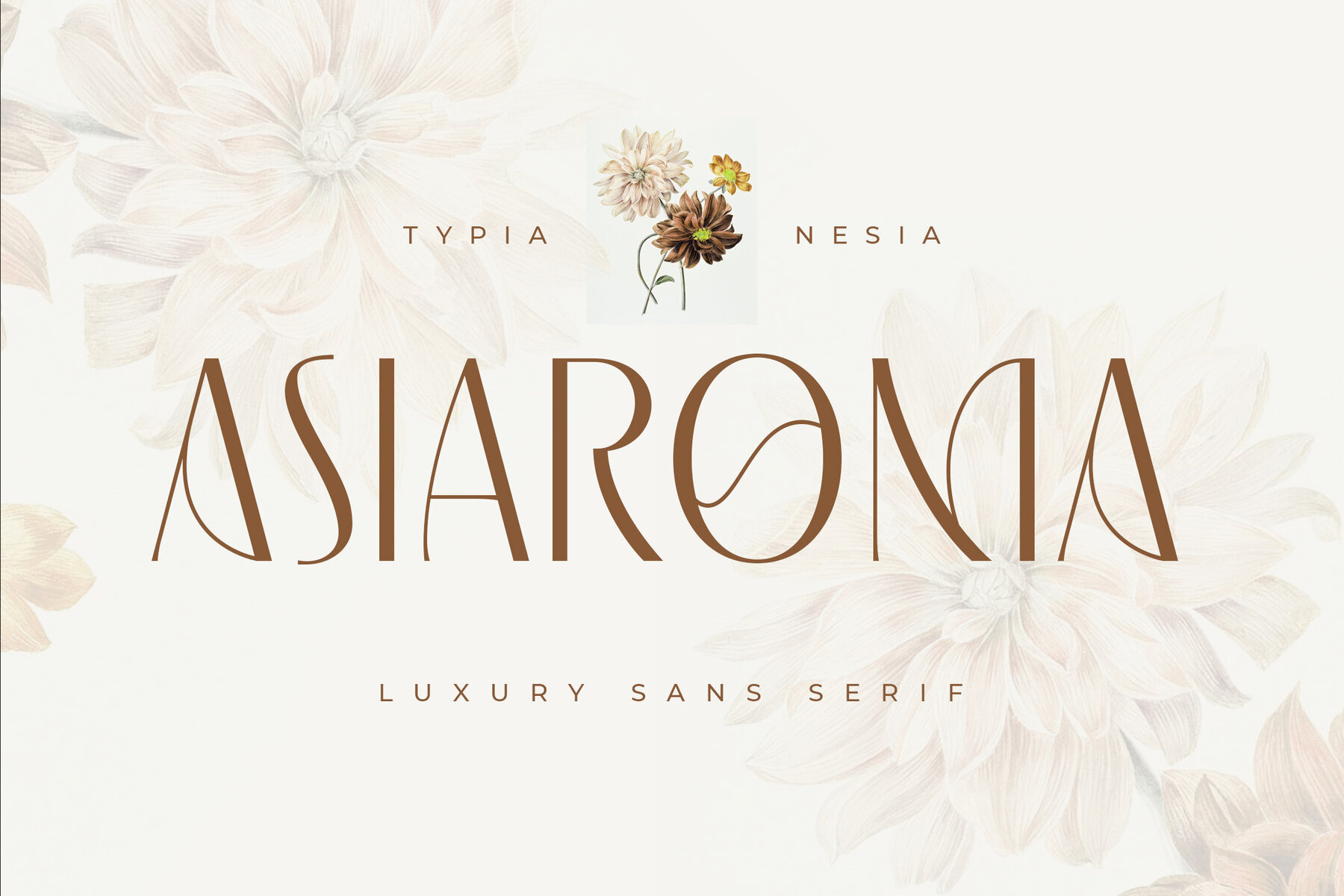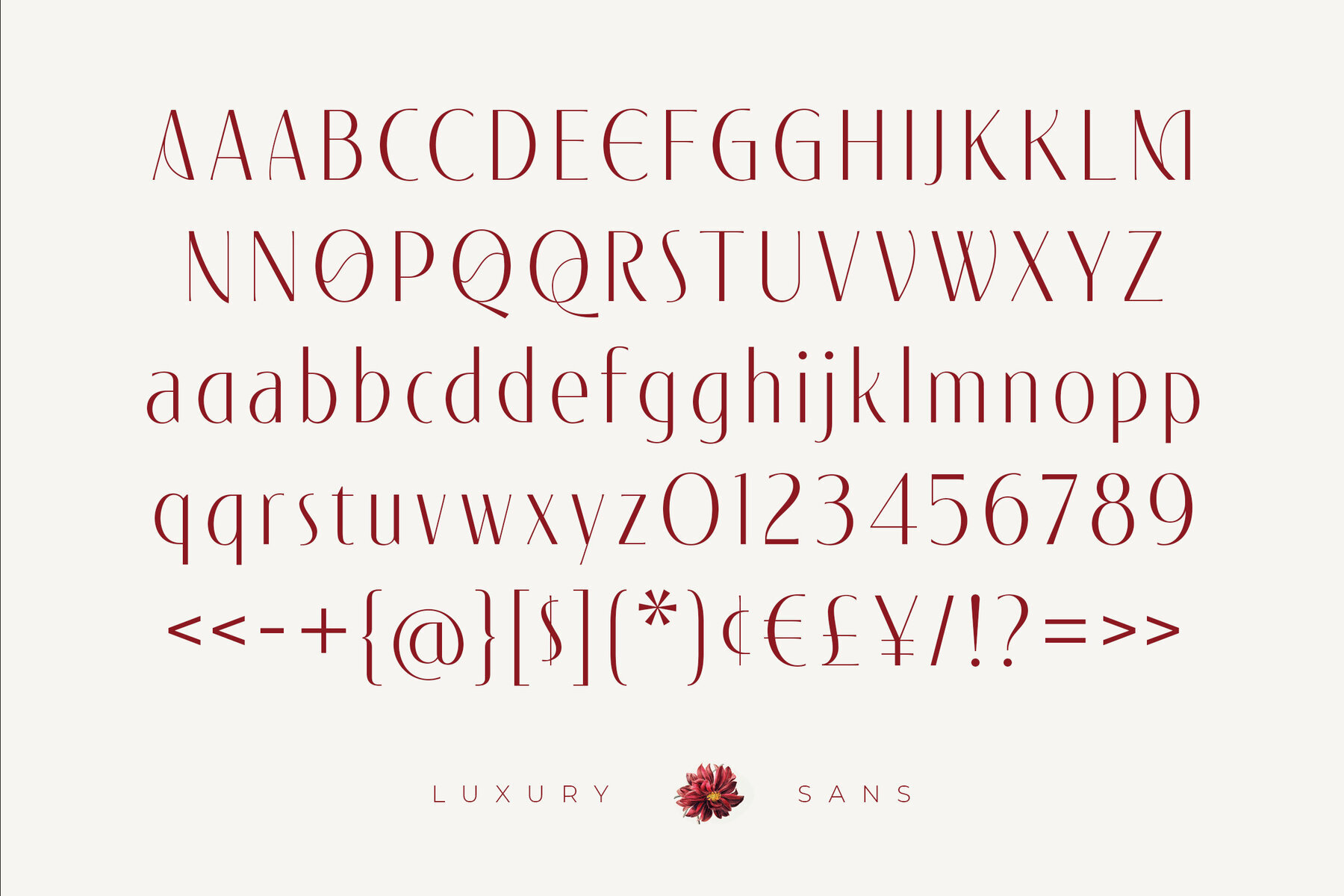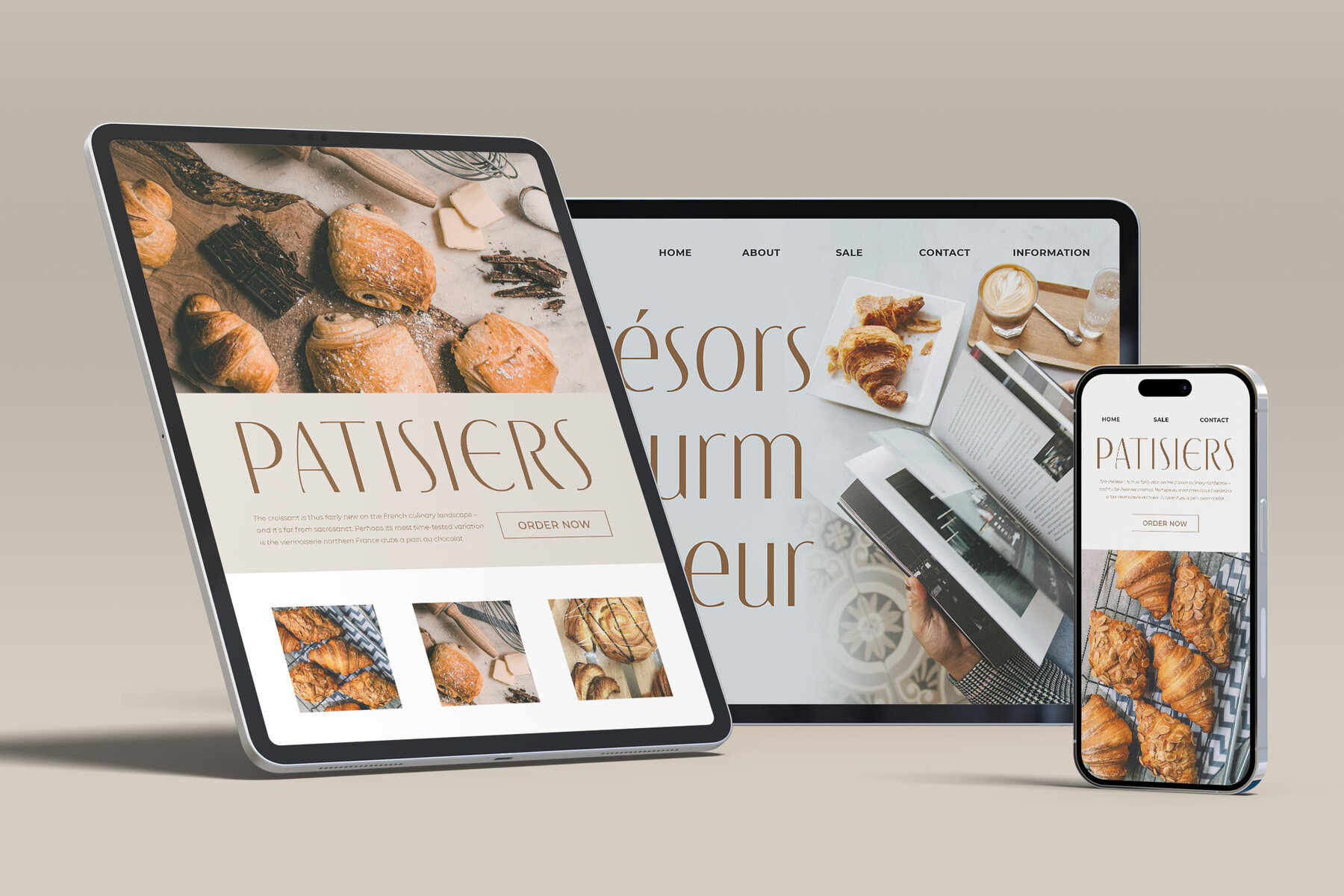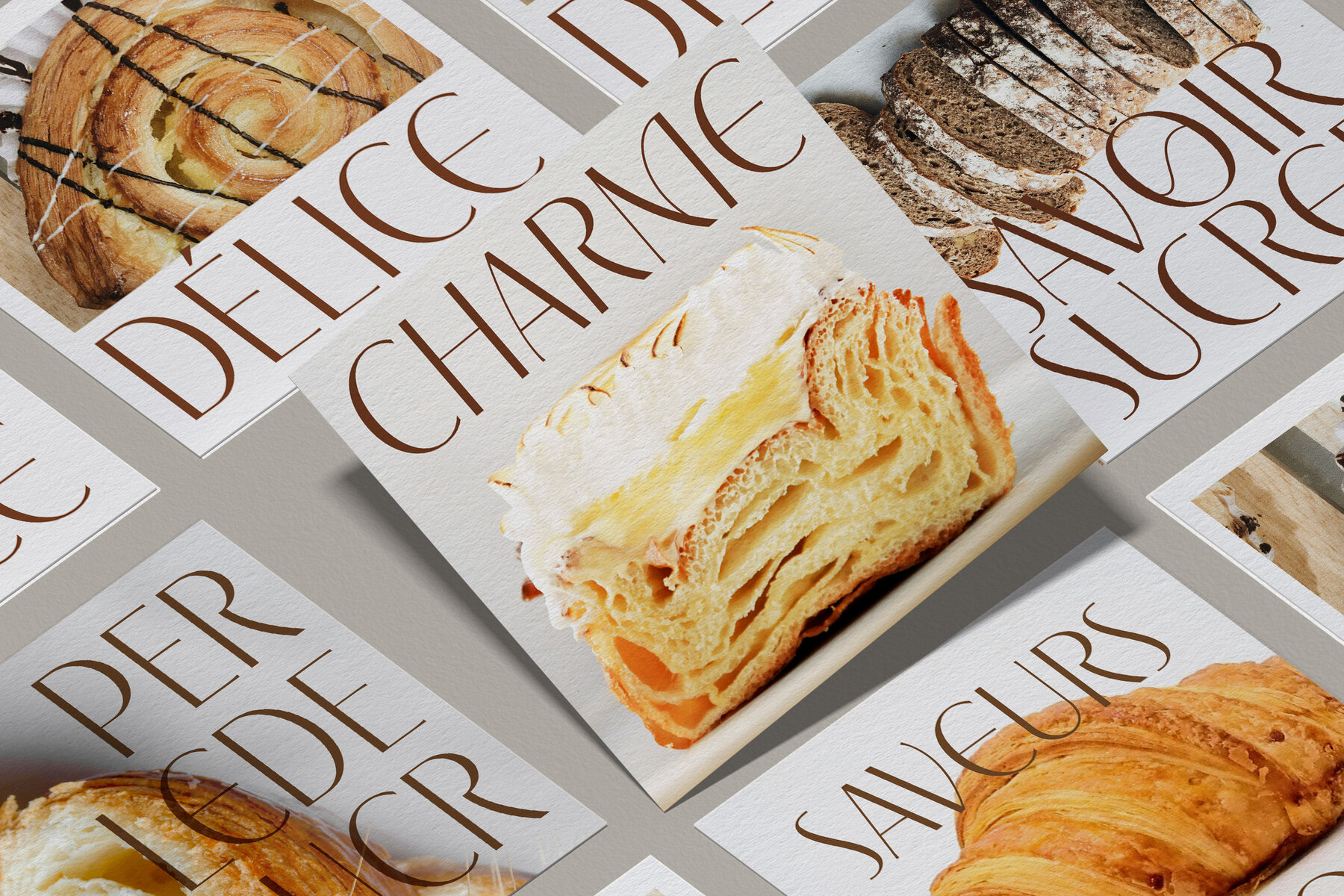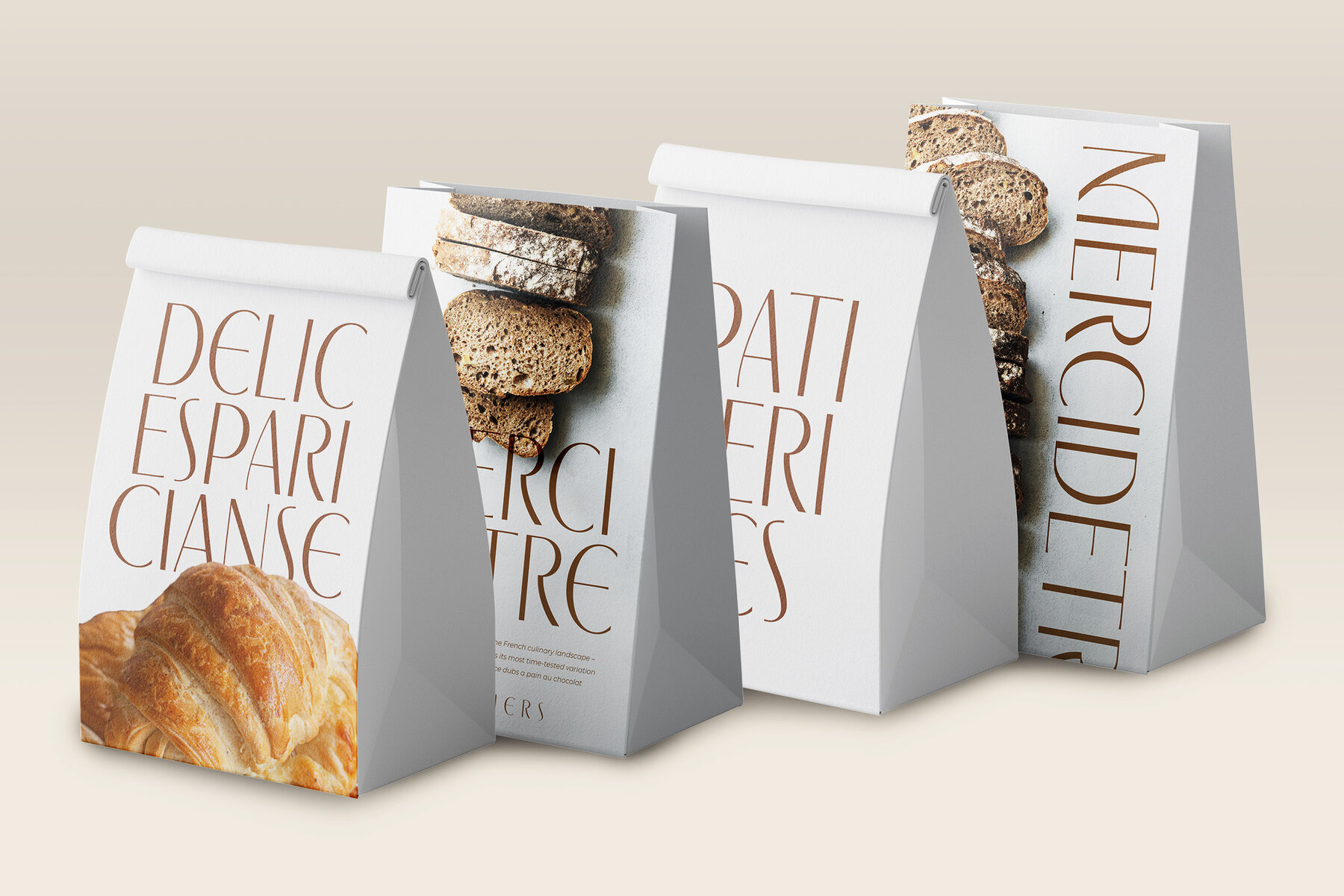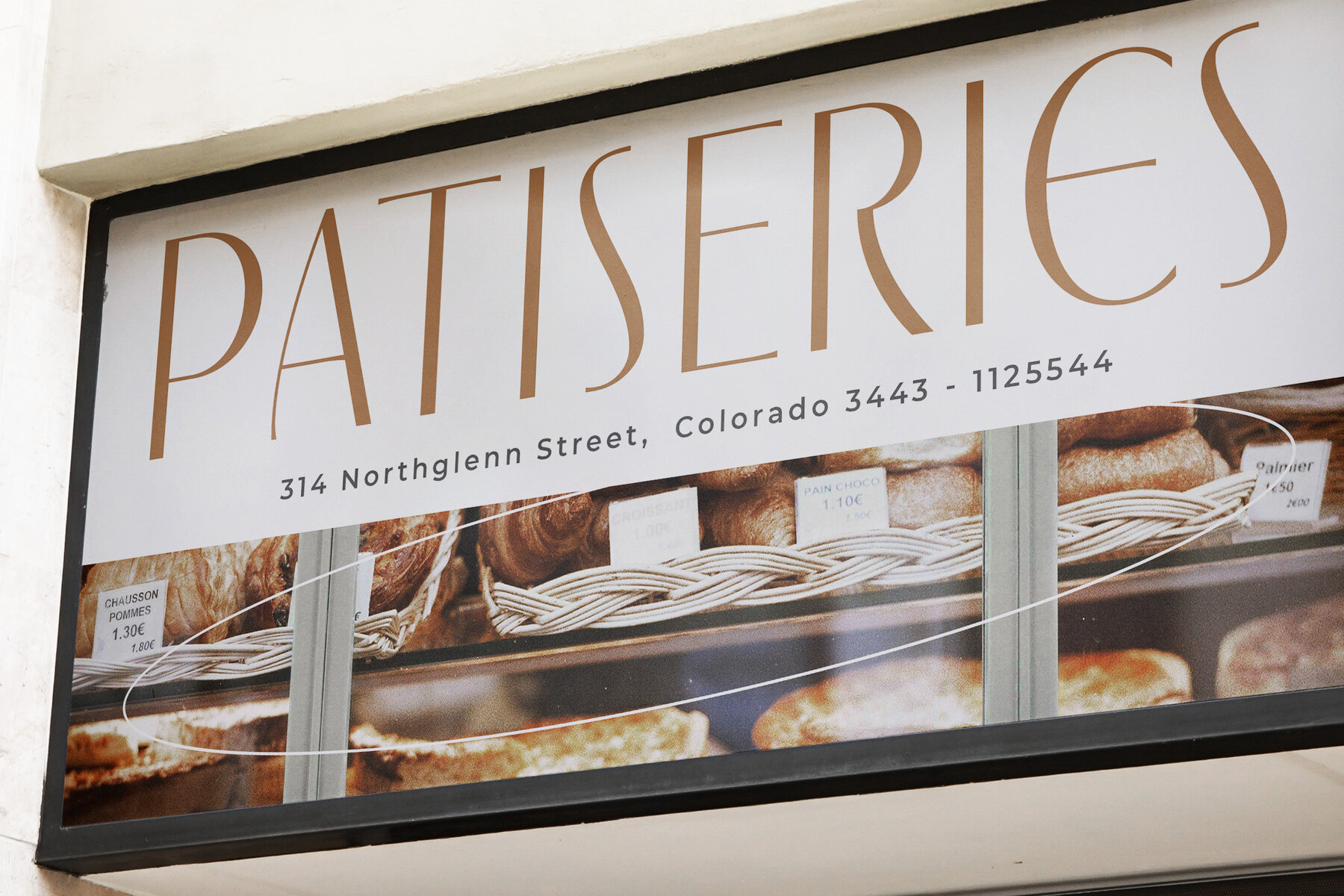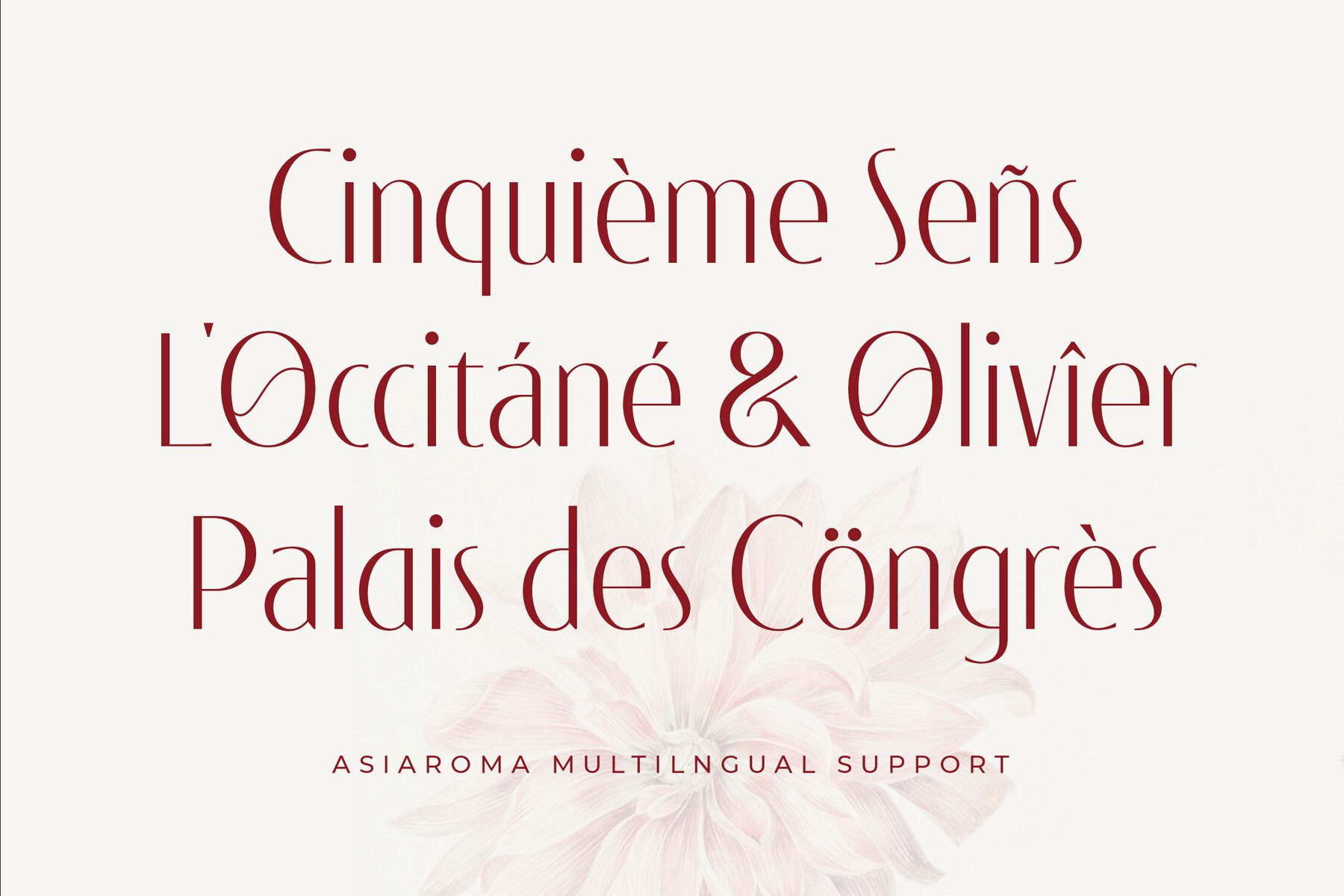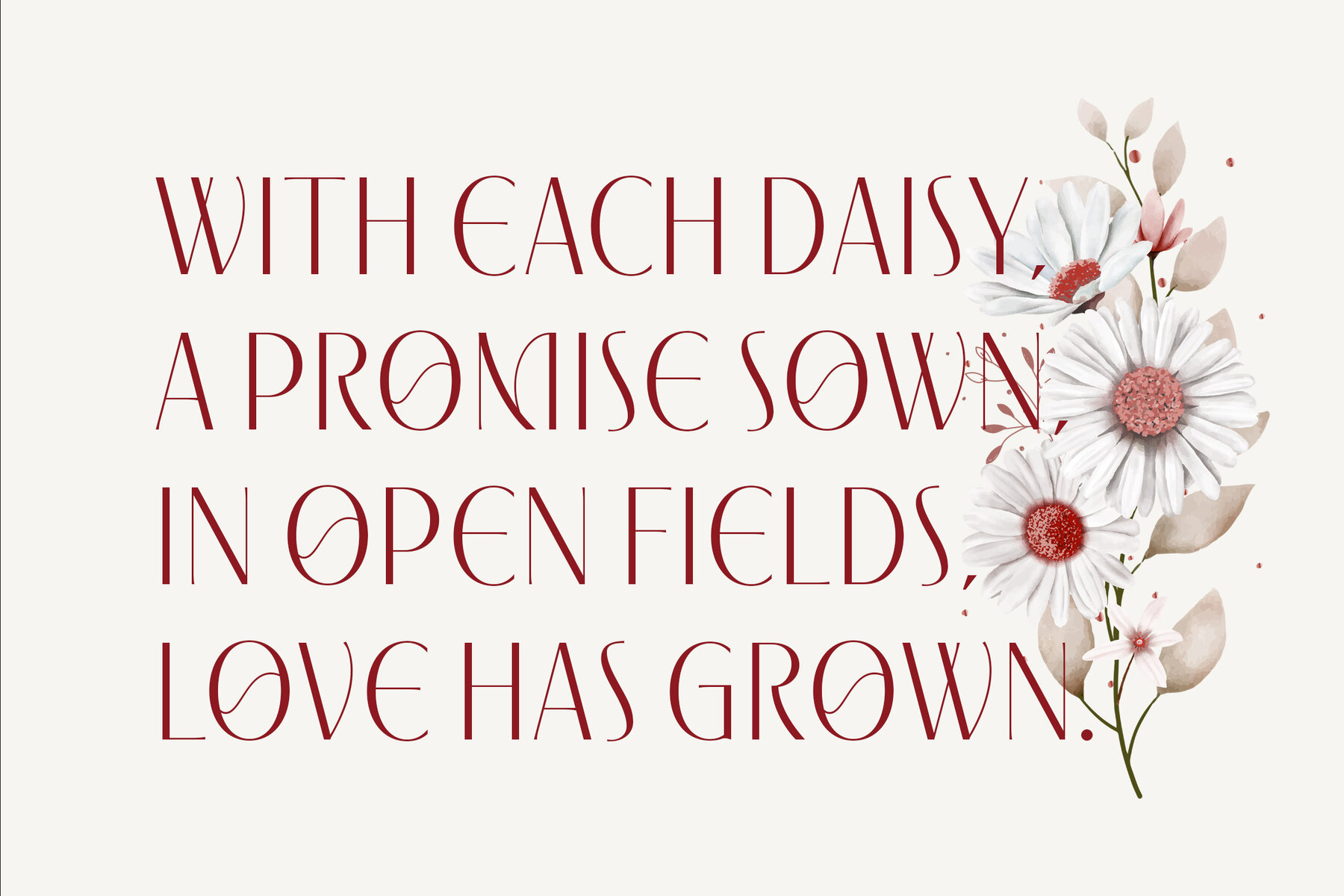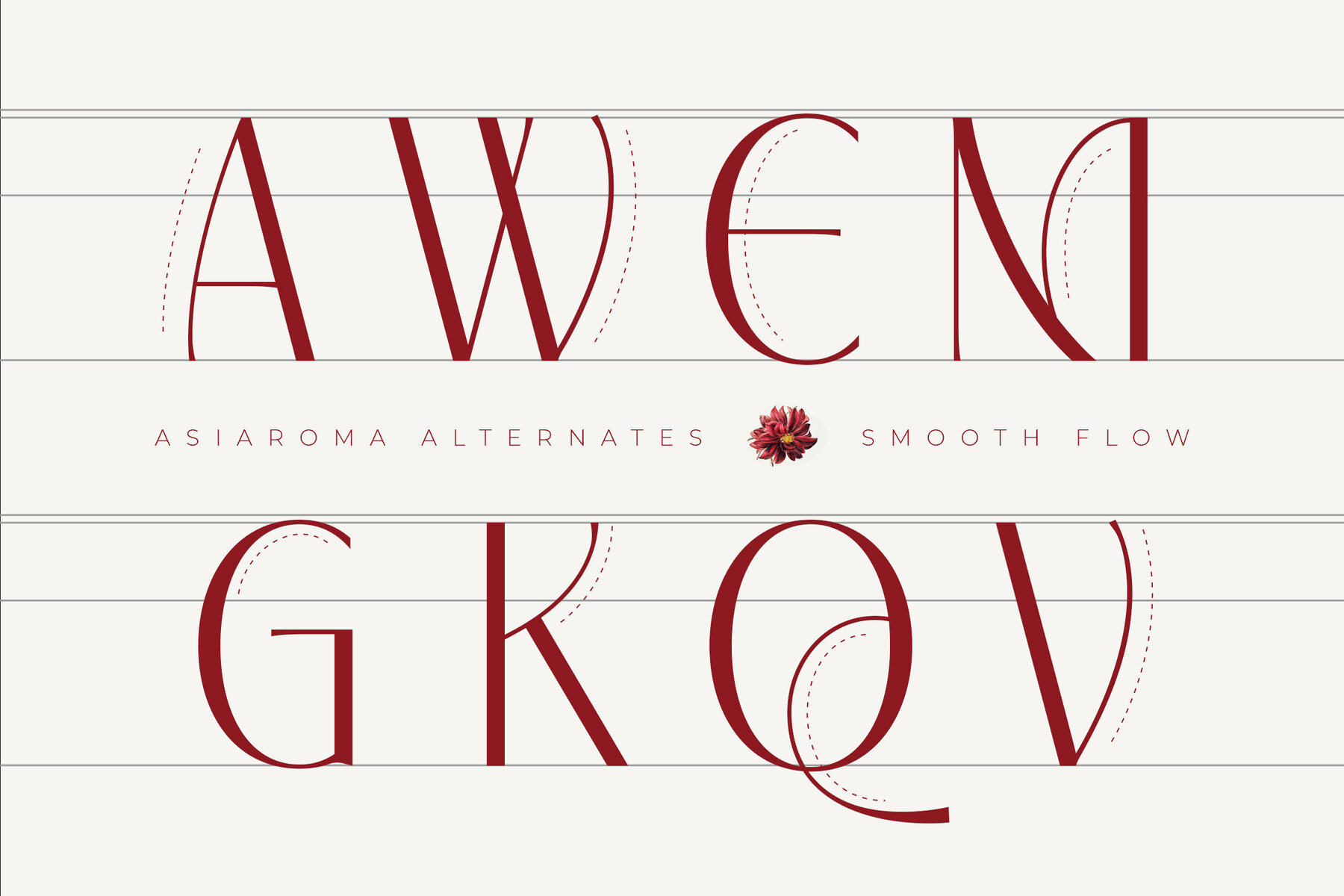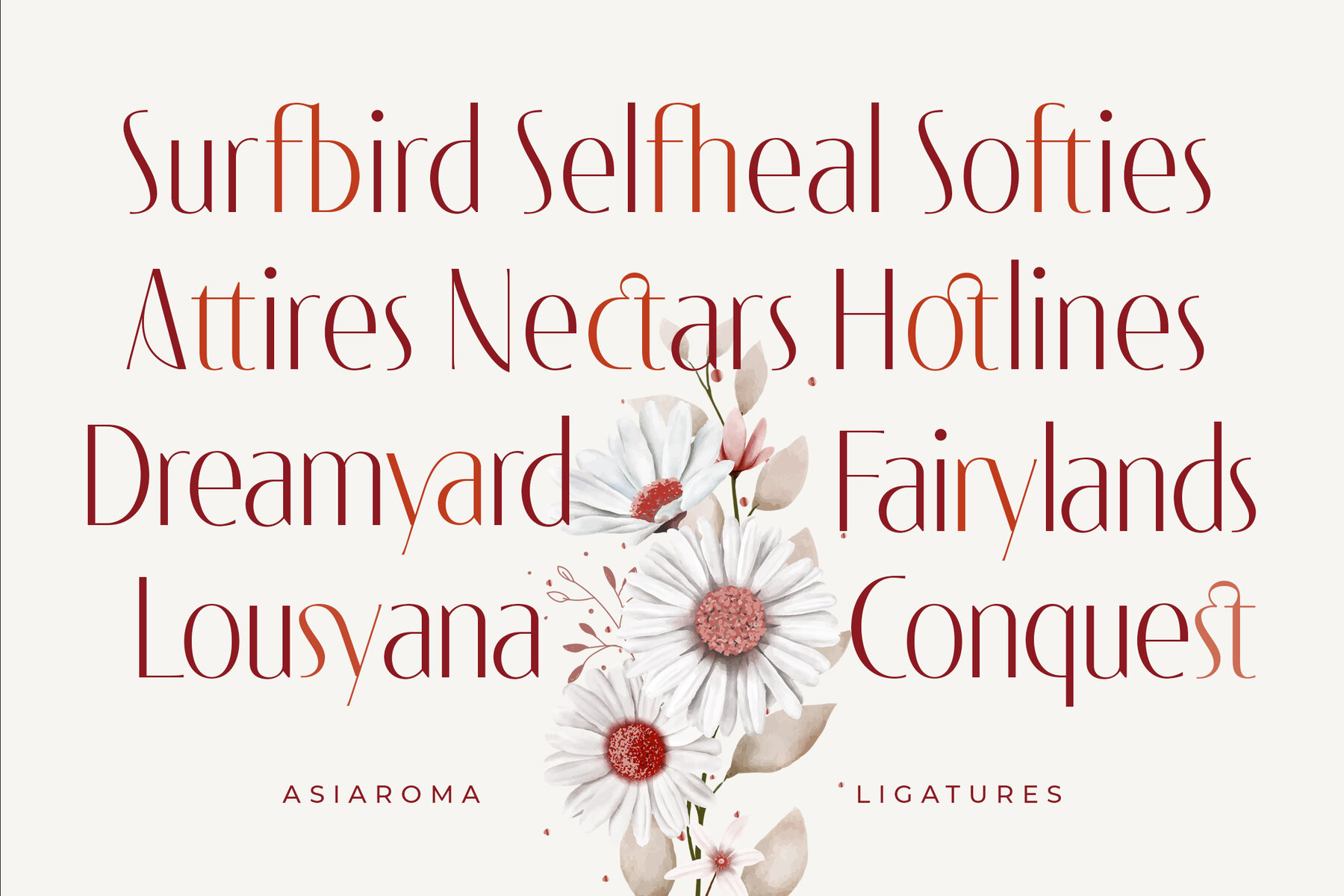
Asiaroma Font
Asiaroma, a creation by Typia Nesia Std, is a luxury sans serif font that captures the essence of modern femininity and sophistication. Designed to infuse a sense of elegance and upmarket style, Asiaroma is ideal for brands looking to project luxury and appeal to a fashion-conscious audience. Its clean lines and refined forms make it especially suited for high-end branding and stylish editorial work.Asiaroma: Elegant Luxury Sans Serif for Sophisticated Branding
Design and Aesthetic
Usability and Versatility